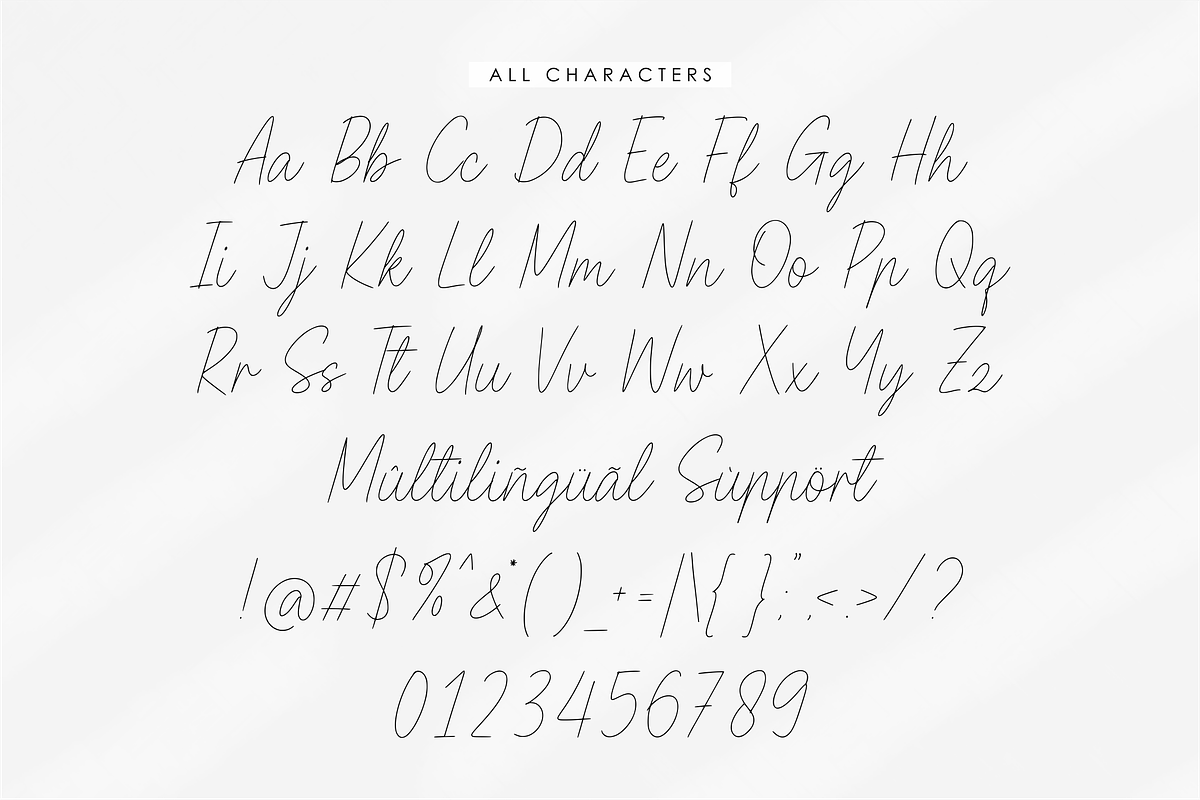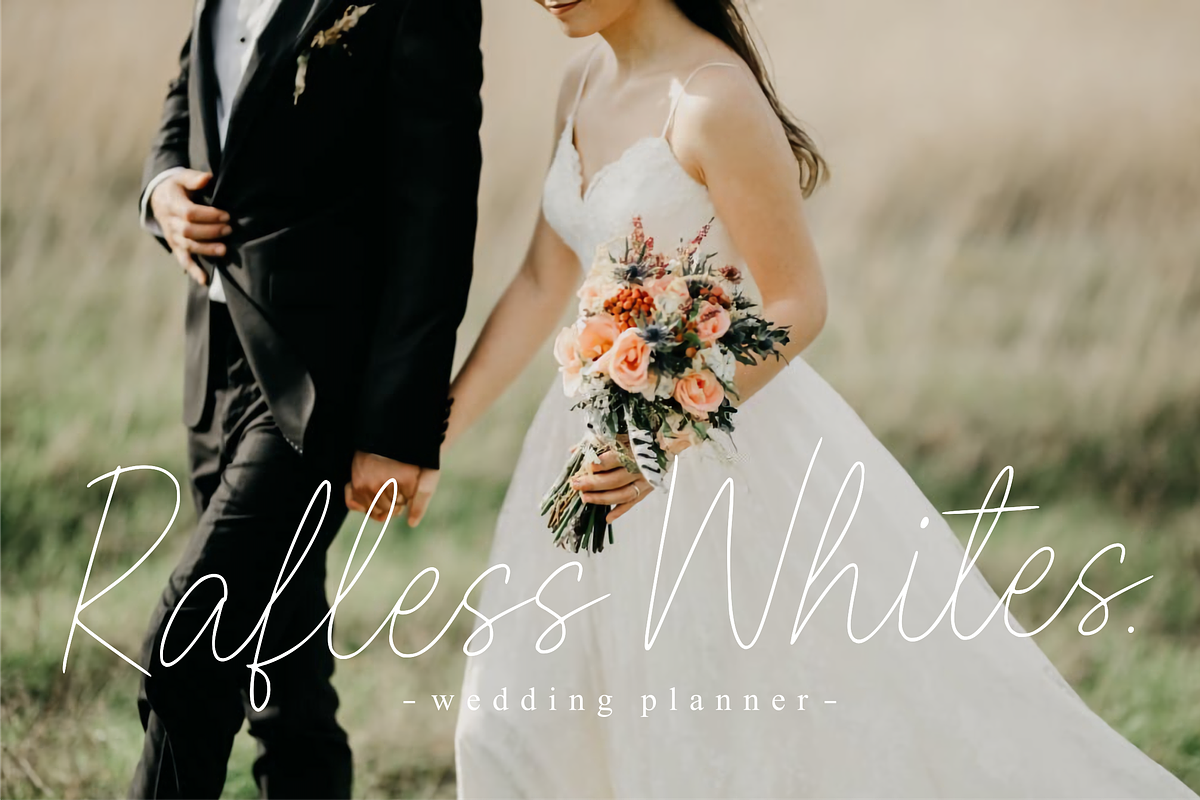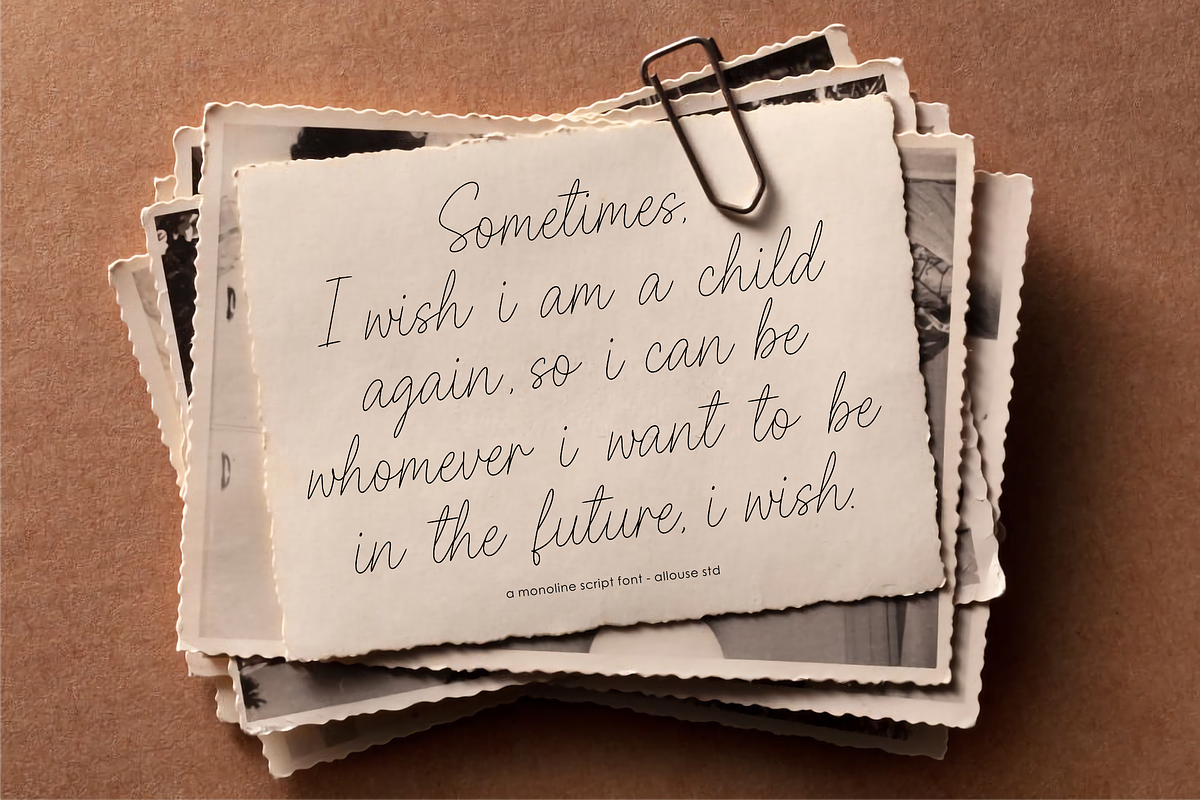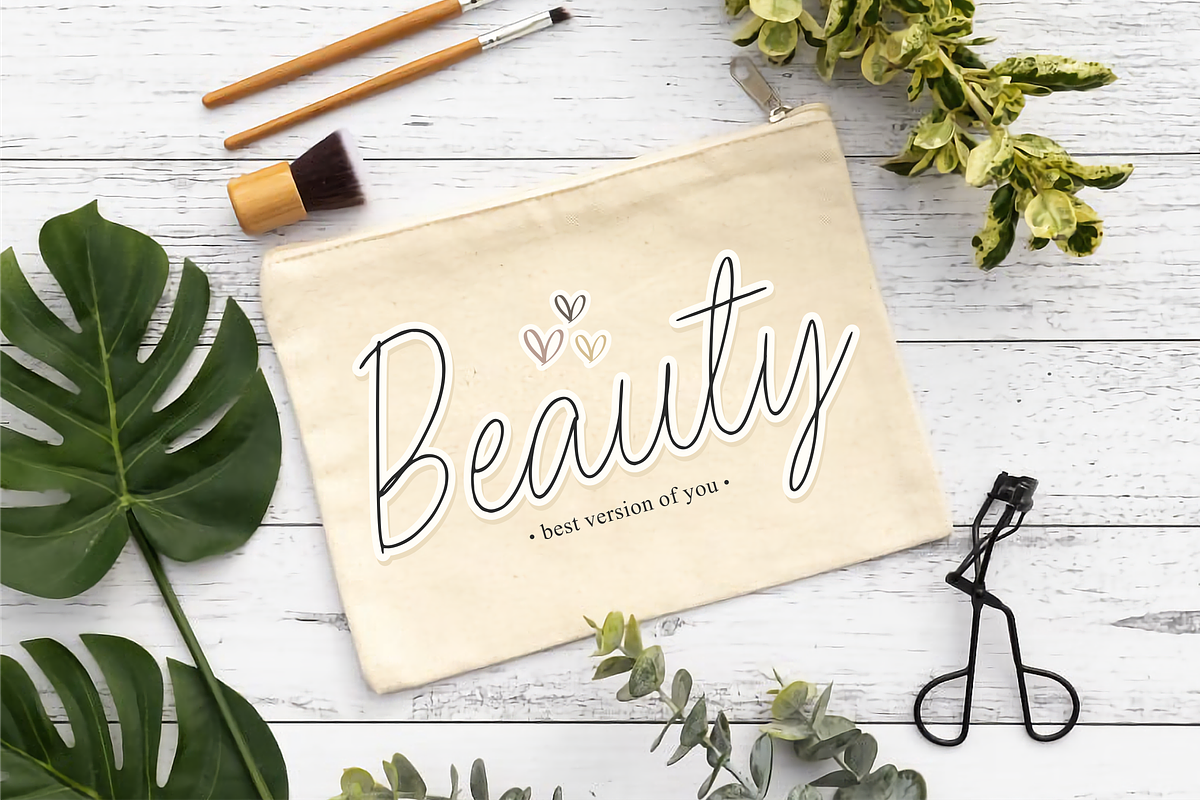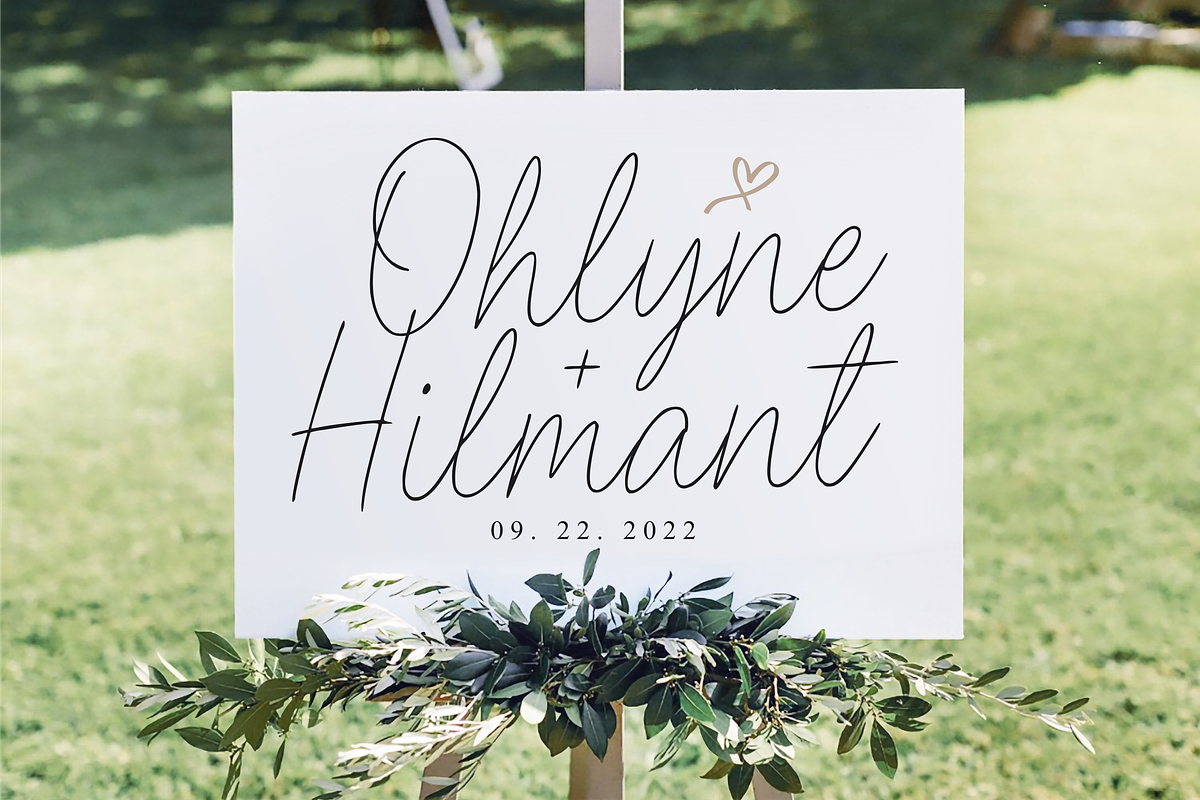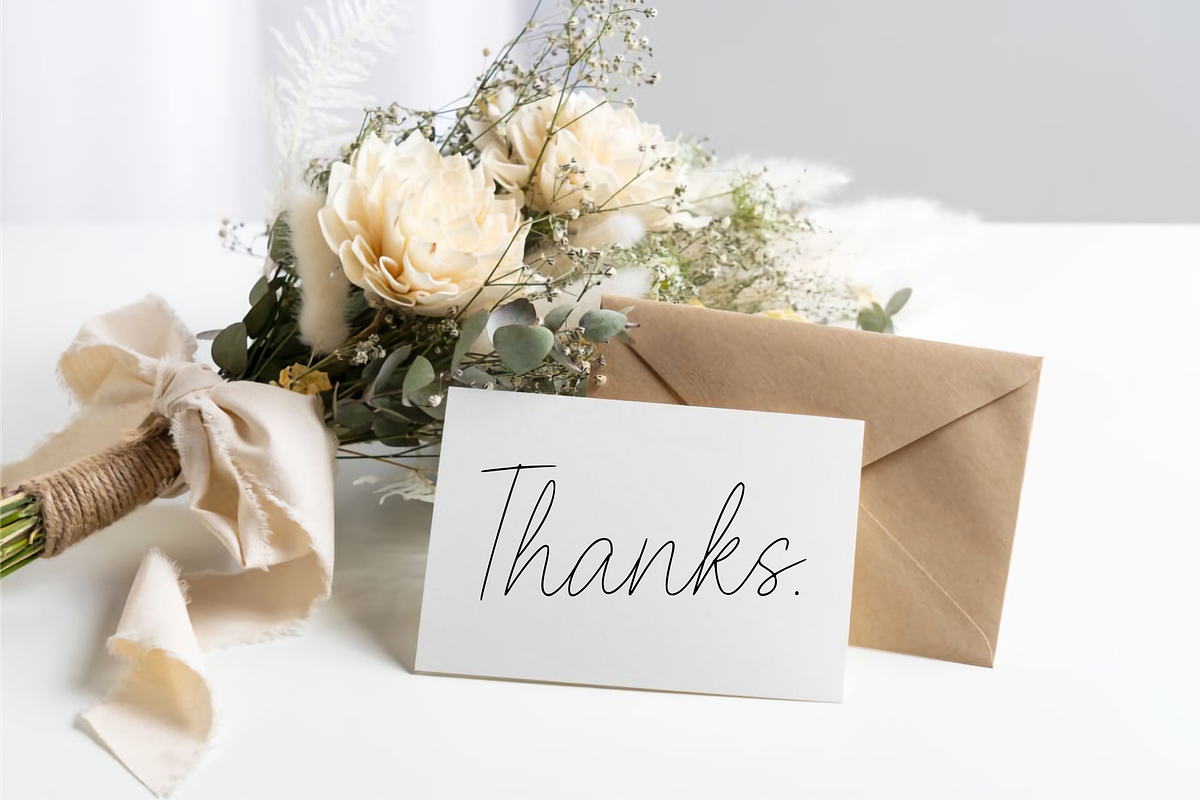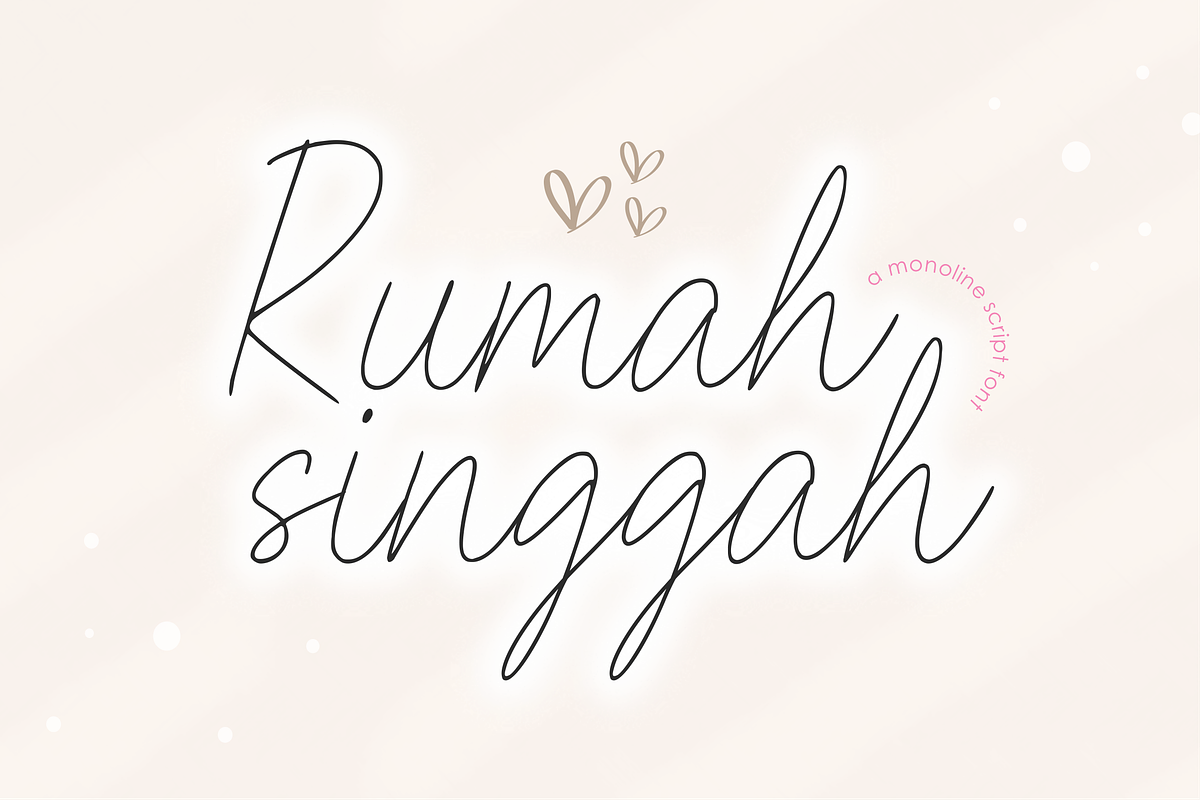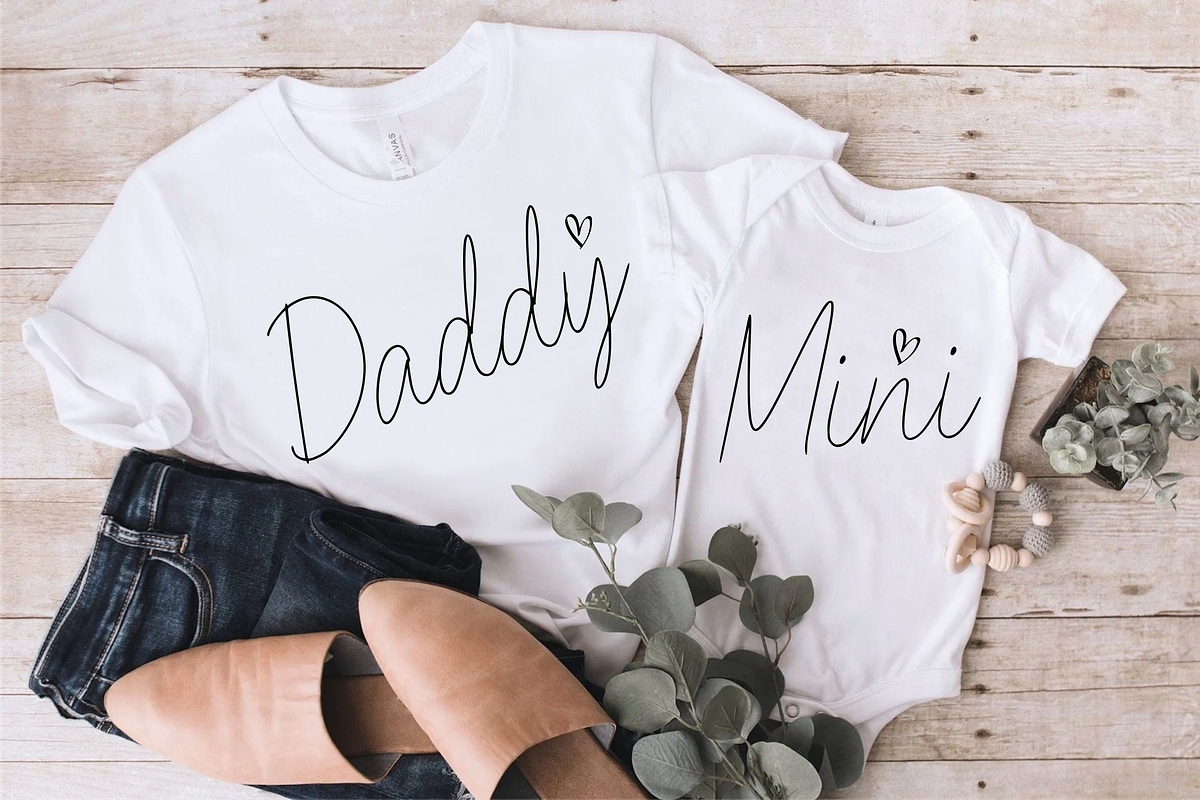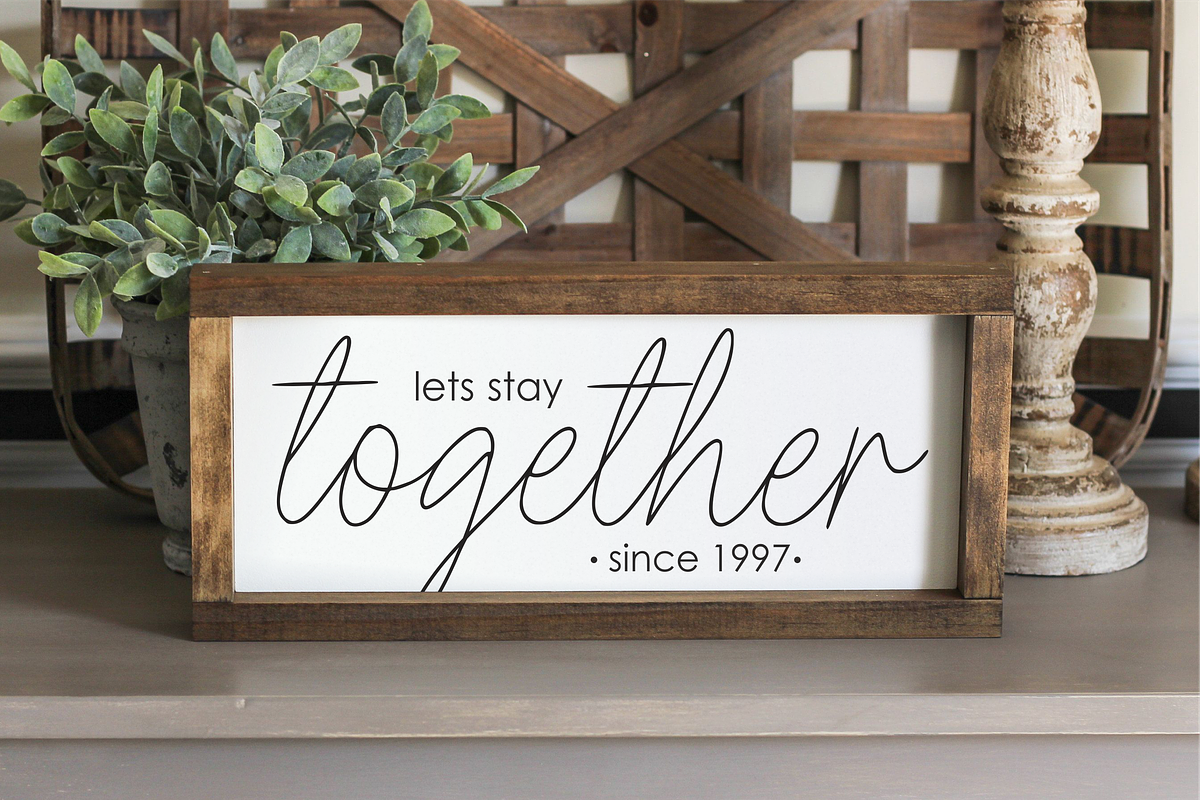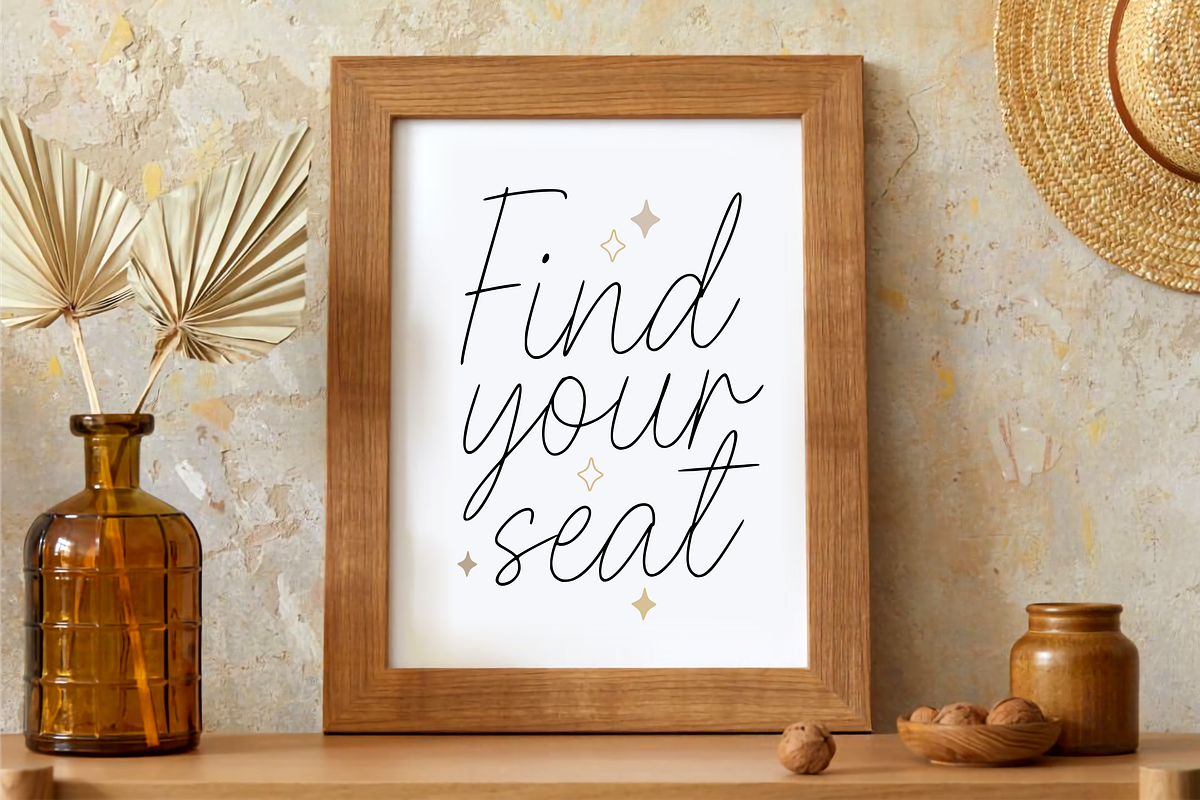
Rumah Singgah A Monoline Script
Proudly Presenting, Rumah Singgah A Monoline Script Font
Rumah Singgah is perfect for any titles, logo, product packaging, branding project, megazine, social media, wedding, or just used to express words above the background.
Rumah Singgah also come with Multi-Lingual Support.